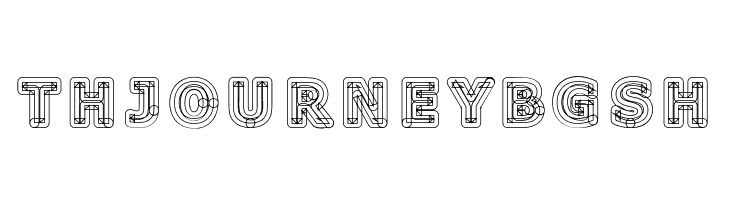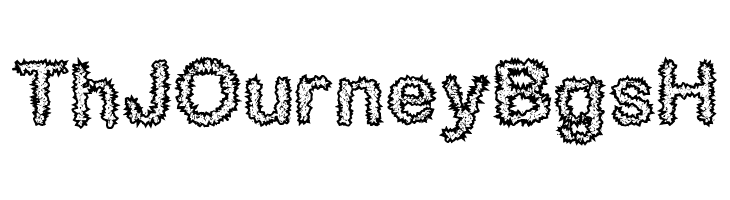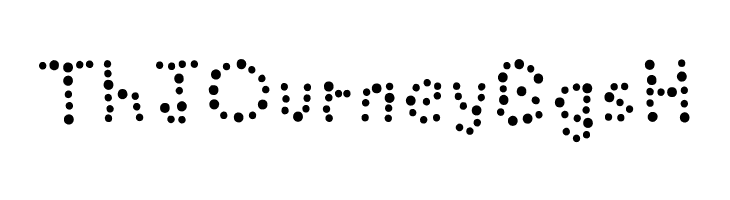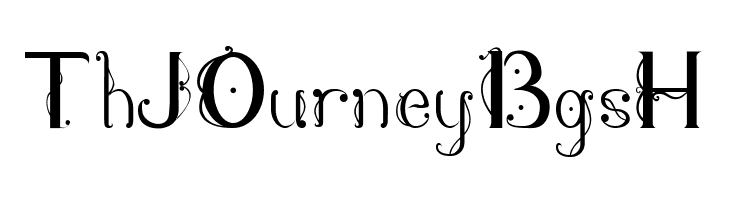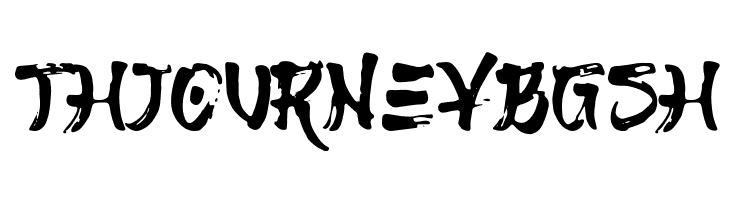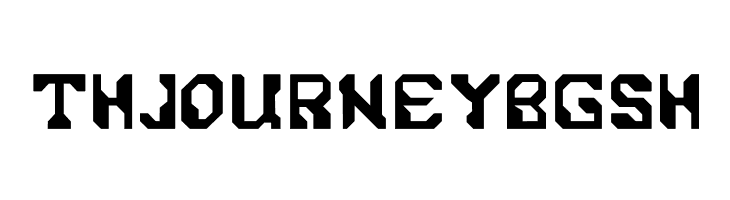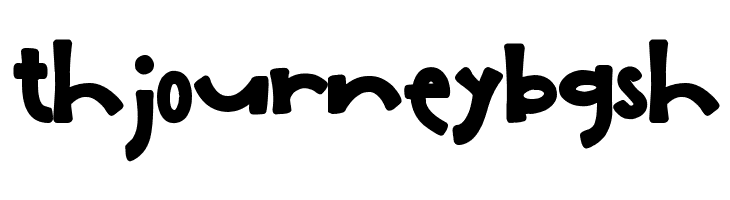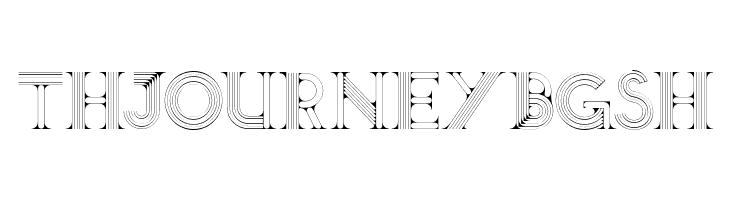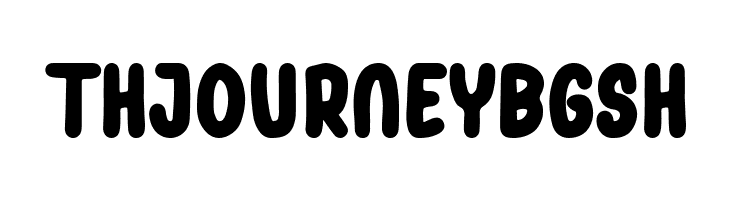
A bold, brushstroke-style font with dynamic and artistic flair.
A bold, playful font with thick, rounded strokes and a bubbly appearance.
A bold, geometric font with angular cuts and a futuristic style.
A modern, multi-line geometric font with a bold and artistic style.
A decorative font with intricate swirls and embellishments.
A playful, bold, and hand-drawn style font with rounded letterforms.
A bold geometric outline font with layered, dimensional characters.
A decorative, gear-like font with jagged edges and a bold, industrial aesthetic.
A modern, dotted font with a playful and engaging design.